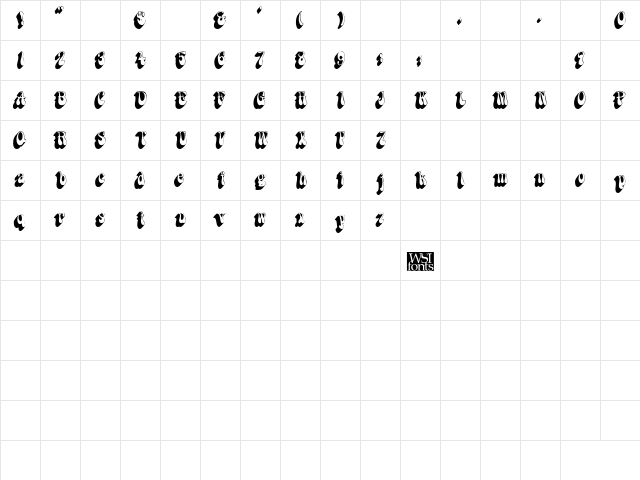
BoopShadow Regular
Design Context for BoopShadow Typeface
BoopShadow brings ornamental detail and strong personality to headlines and identities, where visual impact matters more than quiet functionality.
Font Pairing: Pair with a clean neutral sans-serif for body copy to let BoopShadow's character lead without overwhelming the composition.
Pro Tip: Use BoopShadow exclusively at display sizes — it was designed to be seen, not read at length. Let a neutral companion handle body copy.